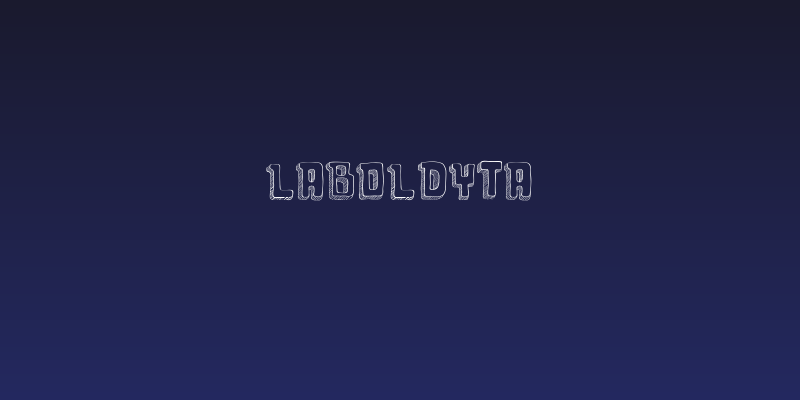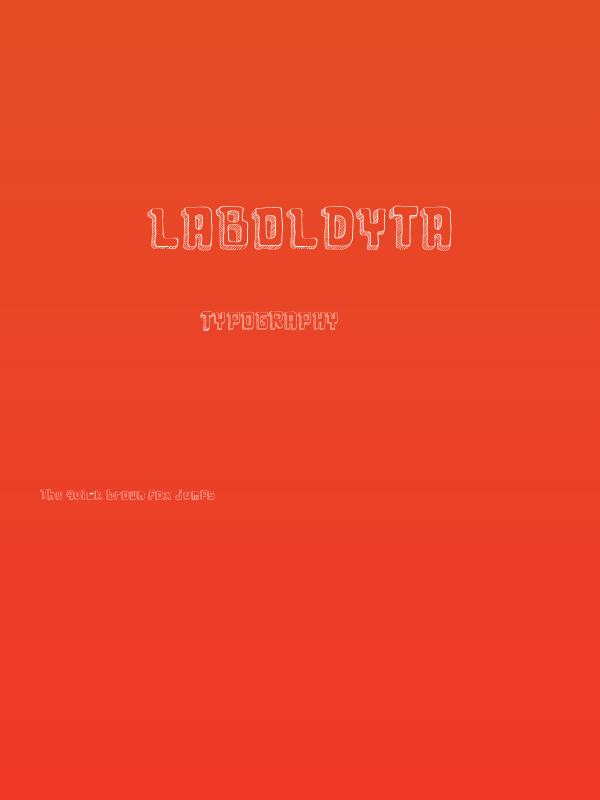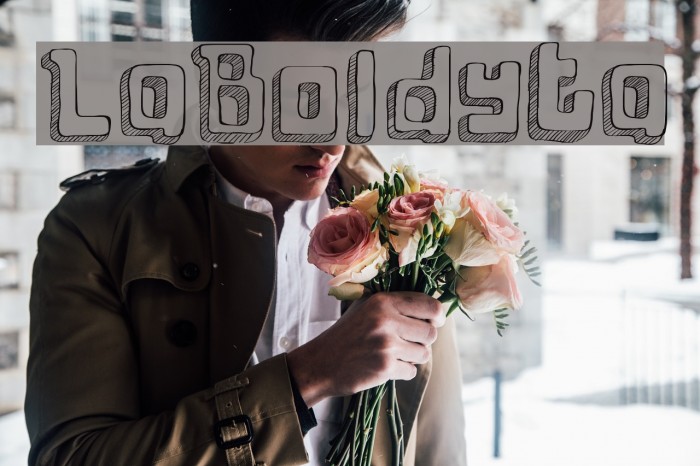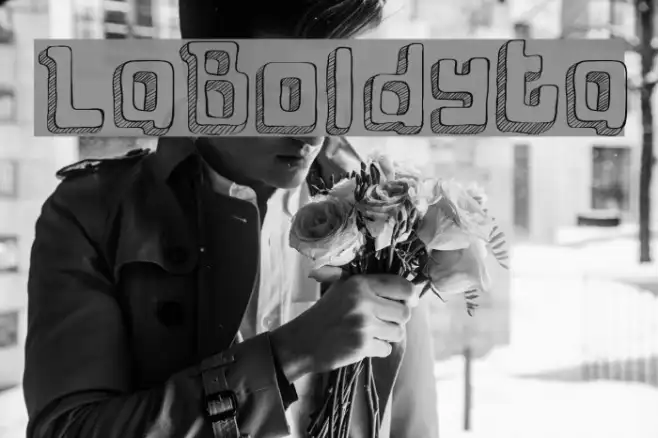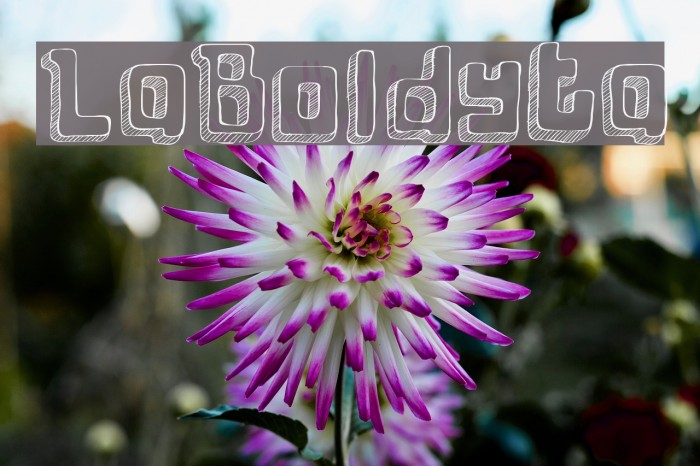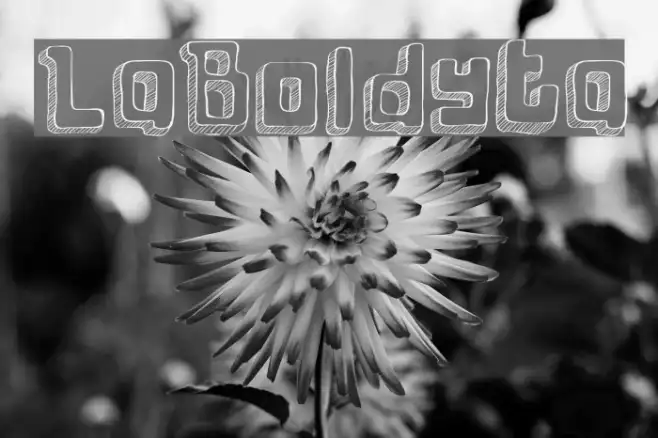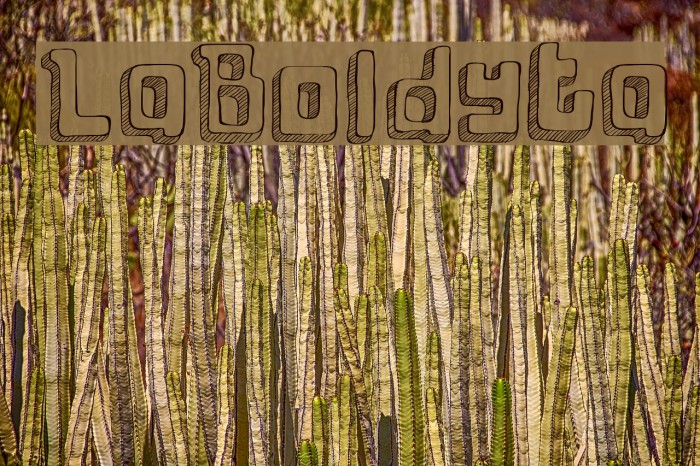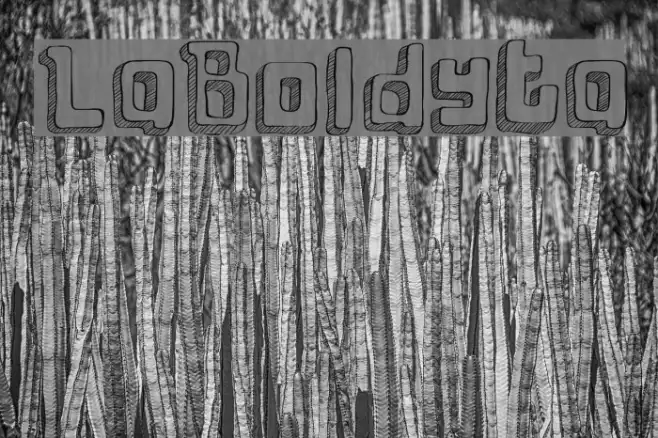
LaBoldyta Font
| Gesamtstil | Playful, Whimsical |
| Vorgeschlagene Projekte | Ideal for children's book covers, playful branding, comic strips, and creative posters. |